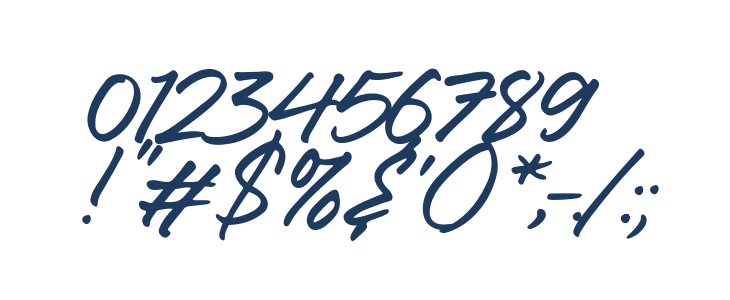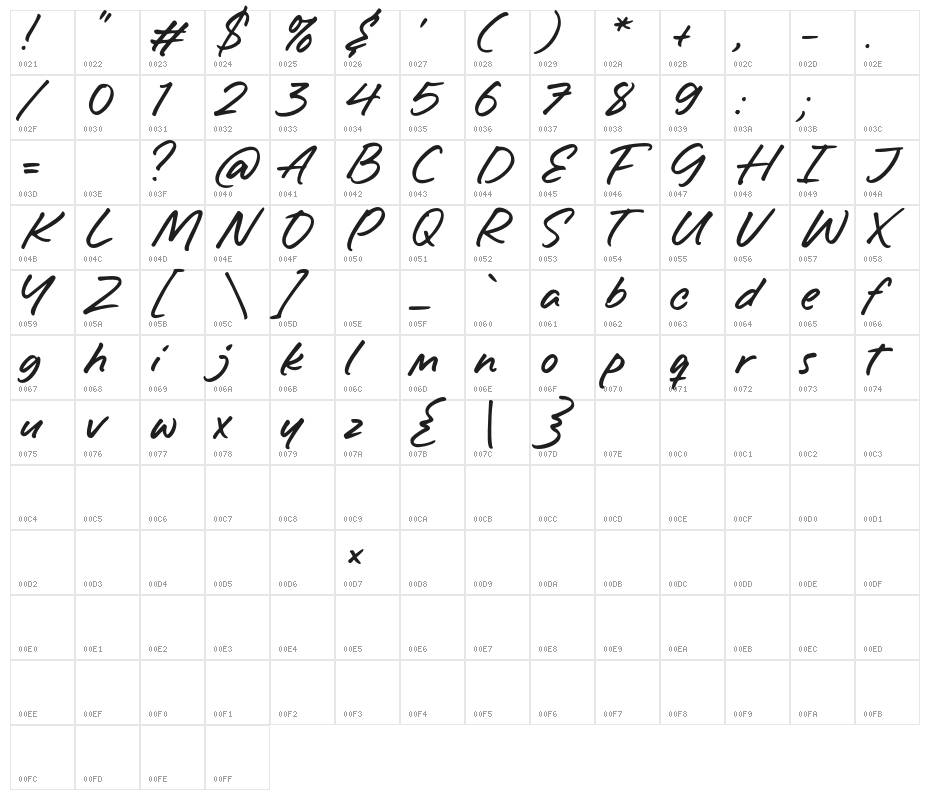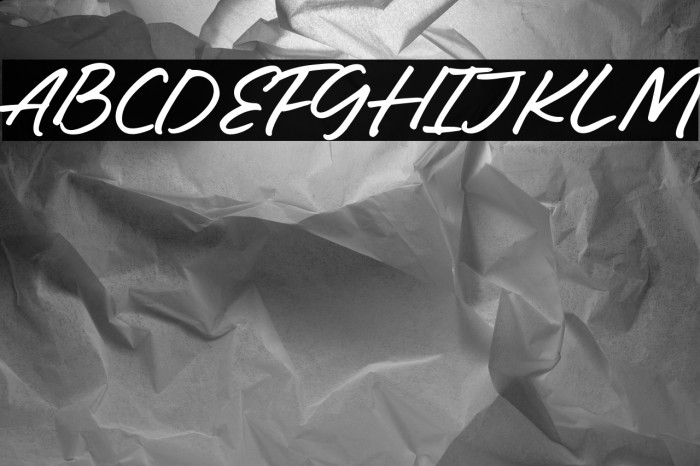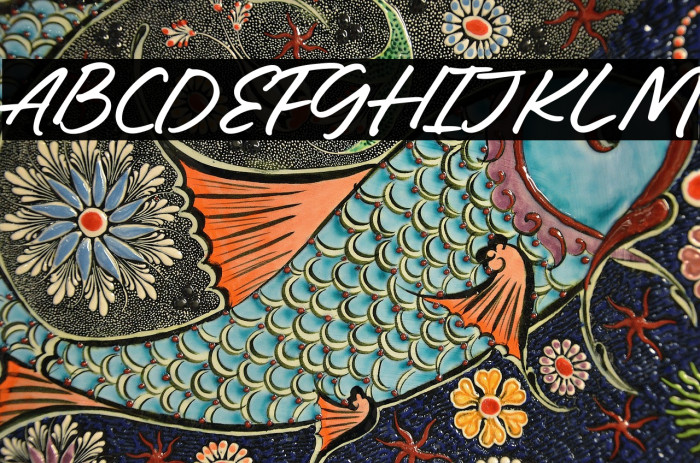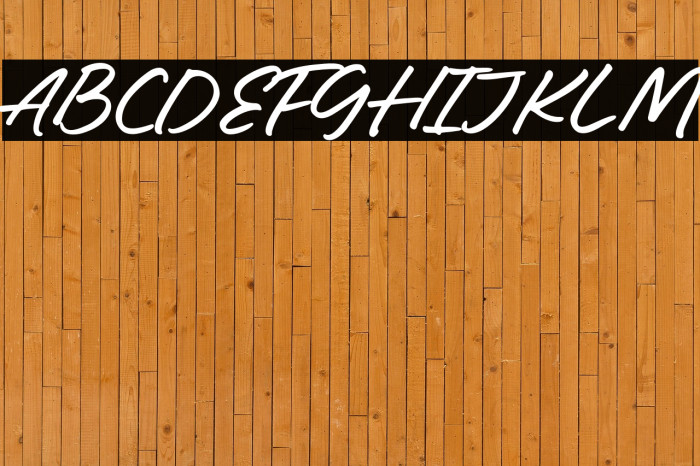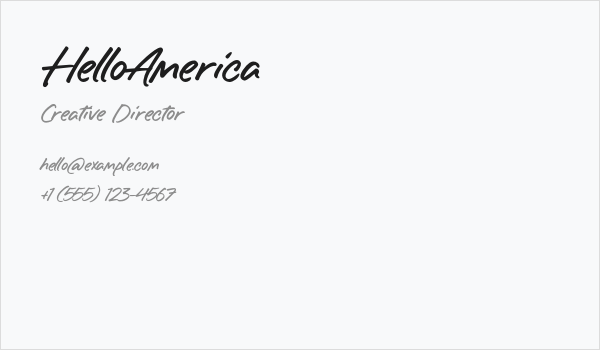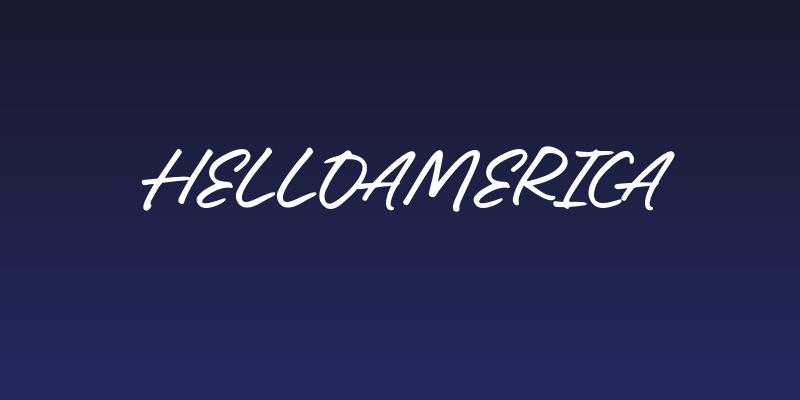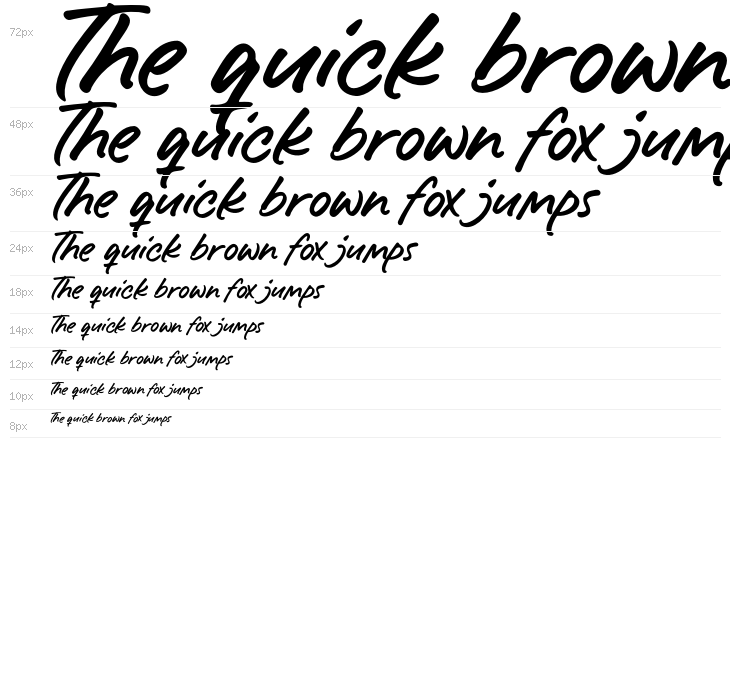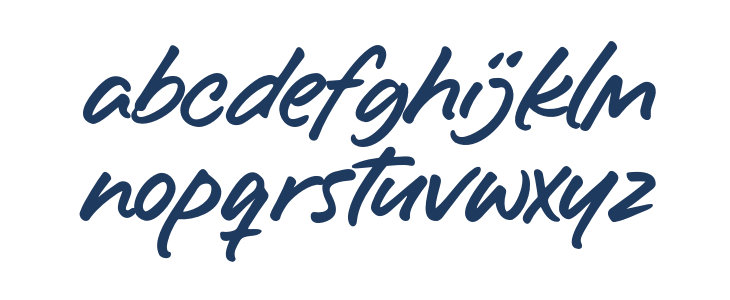
HelloAmerica Font
This font features a dynamic and energetic script style, characterized by its fluid and connected letterforms. The strokes are bold and expressive, with a natural handwritten feel that conveys a sense of movement and personality. The uppercase letters maintain a consistent height, while the lowercase letters exhibit a slight slant, enhancing the casual and informal appearance. The numerals and special characters are crafted with the same lively flair, ensuring a cohesive look across all text elements. This font is ideal for projects that require a personal touch or a creative, informal vibe.
| Use Case | Logos, Headlines, Invitations |
| Proposed Projects | Ideal for branding, invitations, greeting cards, and creative advertising. |